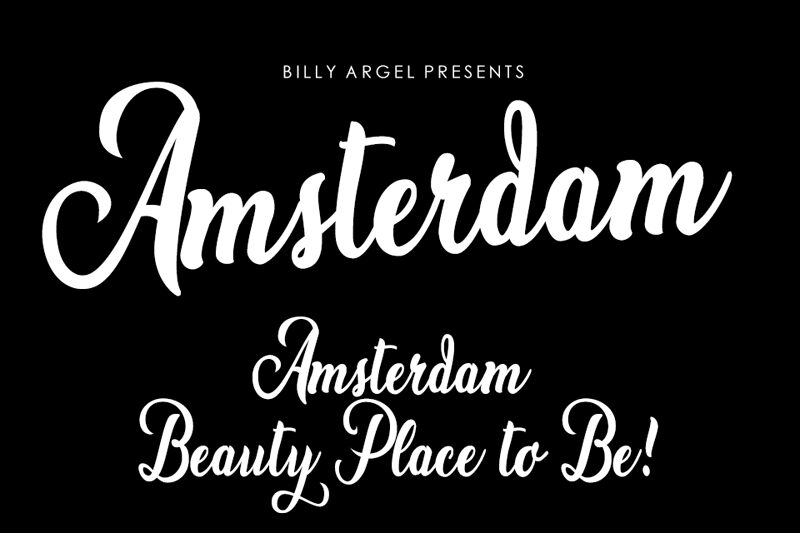
Amsterdam from fonttype is a free calligraphic script shaped by broad, sweeping capitals and pronounced changes between thick and fine strokes. Its joined letters lean forward with quick handwritten motion, and extended curves give the design an elegant, slightly dramatic silhouette.
Fashion labels and beauty brands can use its fluid line for wordmarks, packaging, campaign graphics, and boutique event materials because it resembles confident custom handwriting rather than formal typesetting. It also fits wedding invitations, where flowing curves echo romantic celebrations.